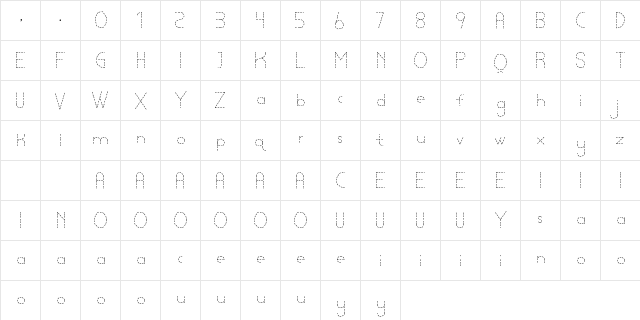
Lamborgini Thin Dash Regular
| Designer | Ikrar Bey Khubaib |
Design Context for Lamborgini Thin Dash Typeface
Lamborgini Thin Dash is a composed and adaptable typeface that performs quietly and consistently across a wide range of design contexts. Its slender proportions lend an understated elegance to any composition.